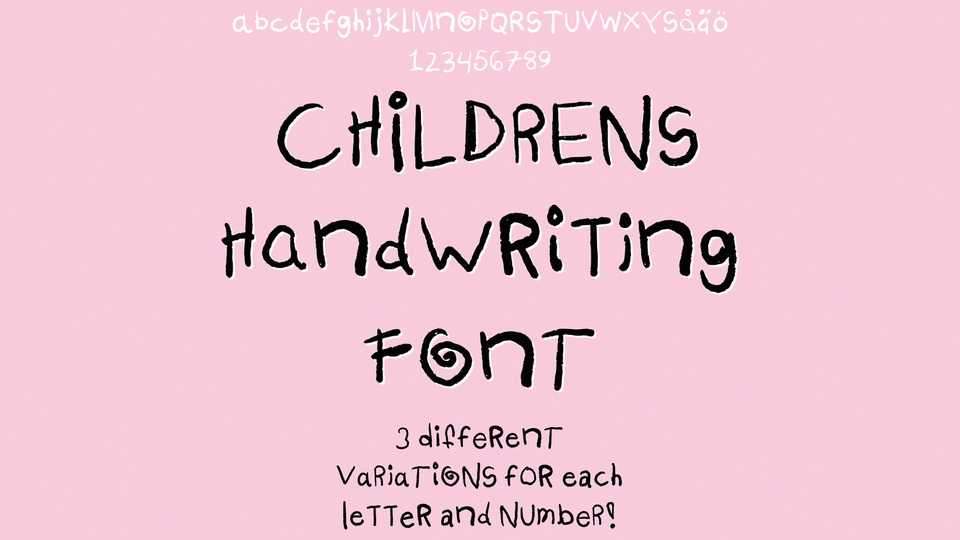
Download Sade Kids font, a funny children’s handwriting typeface filled with a cheerful, natural vibe. Add a playful and quirky touch to your designs with Sade Kids font.
Designer: Alexander de Sade